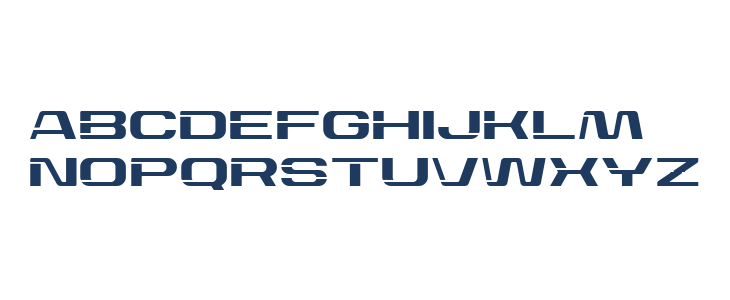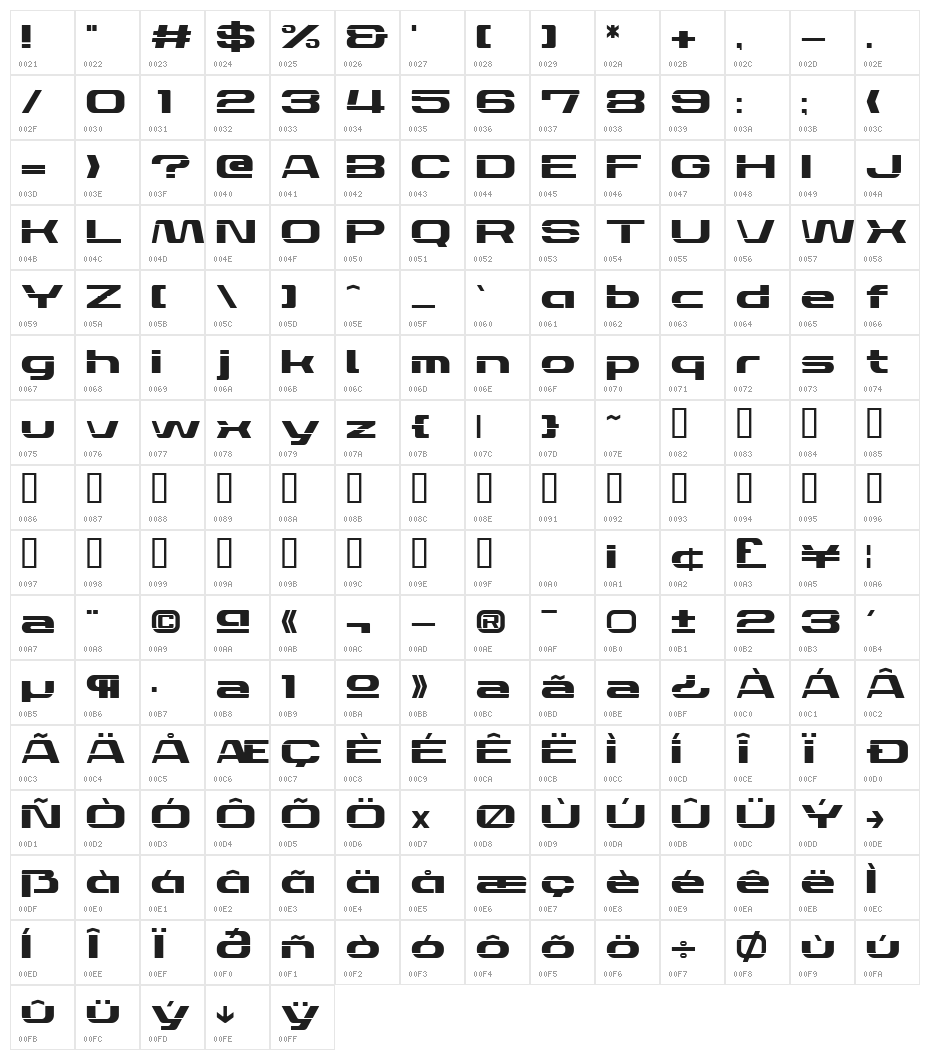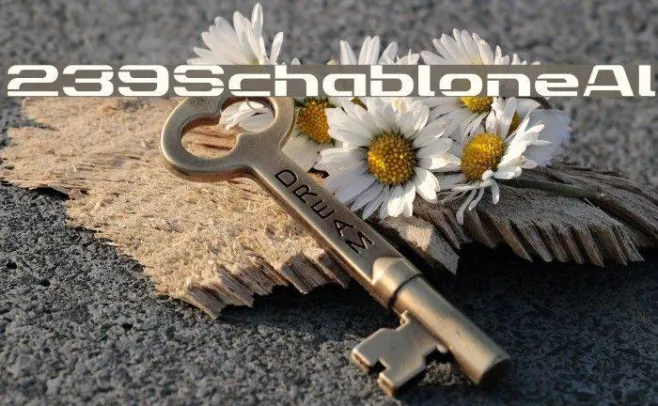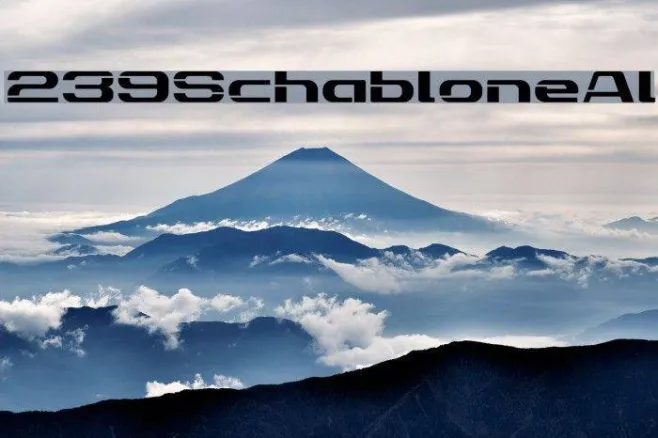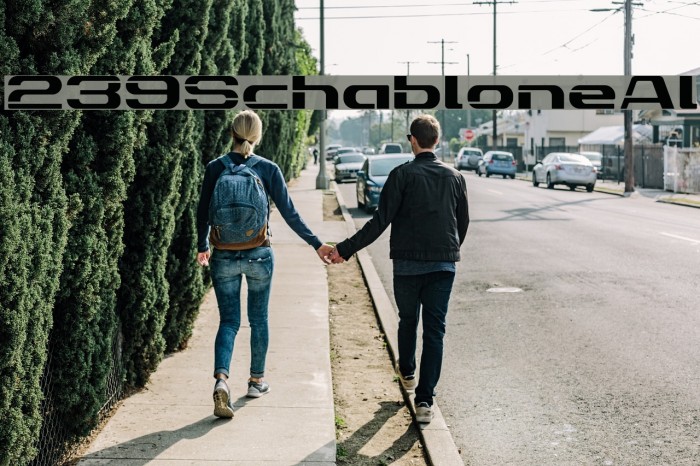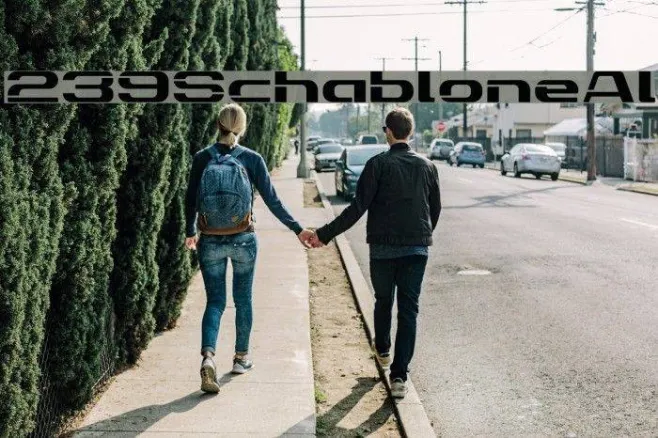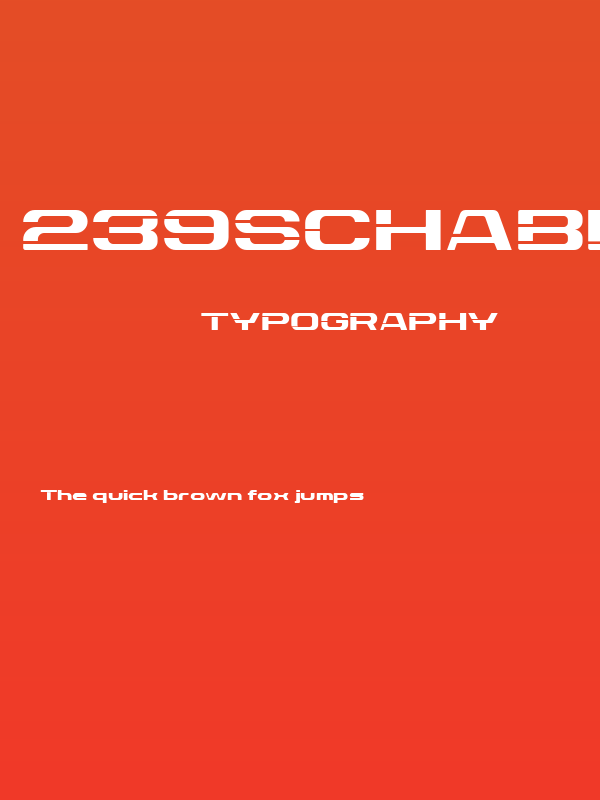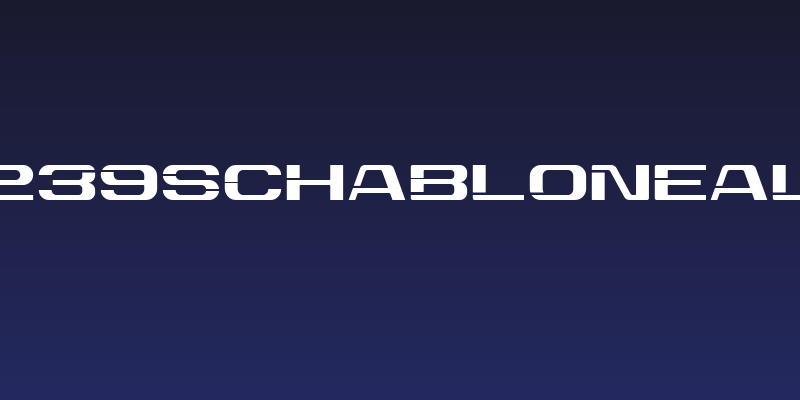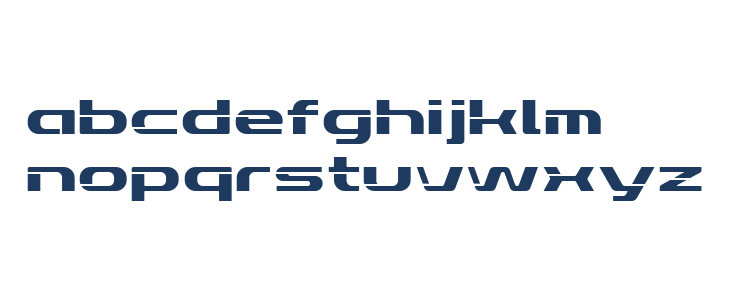
239SchabloneAl Font
239SchabloneAl Description
This font features a bold and futuristic design with a distinct geometric structure. The characters are constructed with a combination of sharp angles and smooth curves, creating a dynamic and modern appearance. The uppercase letters have a strong presence, while the lowercase letters maintain a consistent style with slightly softer edges. The numerals are clear and bold, ensuring readability. Special characters are designed to match the overall aesthetic, making this font versatile for various applications.
| Proposed Projects | Ideal for technology branding, sci-fi posters, video game titles, and modern advertising. |